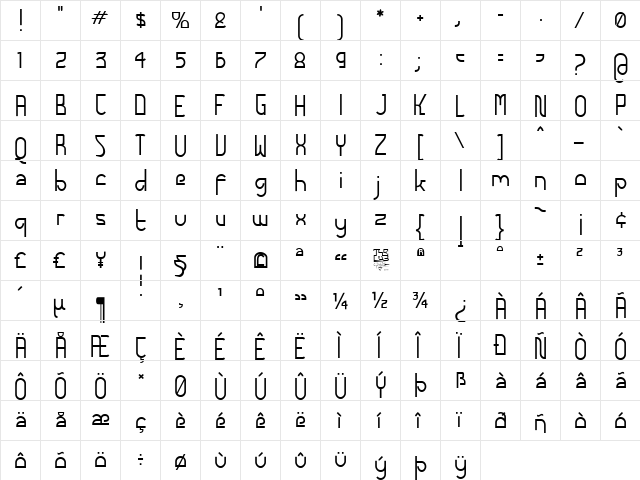
Futurex - AlternatLC Regular
| Designer | Graham Meade & Apostrophe. |
Design Context for Futurex - AlternatLC Typeface
Futurex - AlternatLC channels digital-age aesthetics through its sharp, structured letterforms — ideal for brands that want to signal innovation.
Pro Tip: Try Futurex - AlternatLC with generous letter-spacing in UI labels and navigation — the geometric forms benefit from room to breathe.